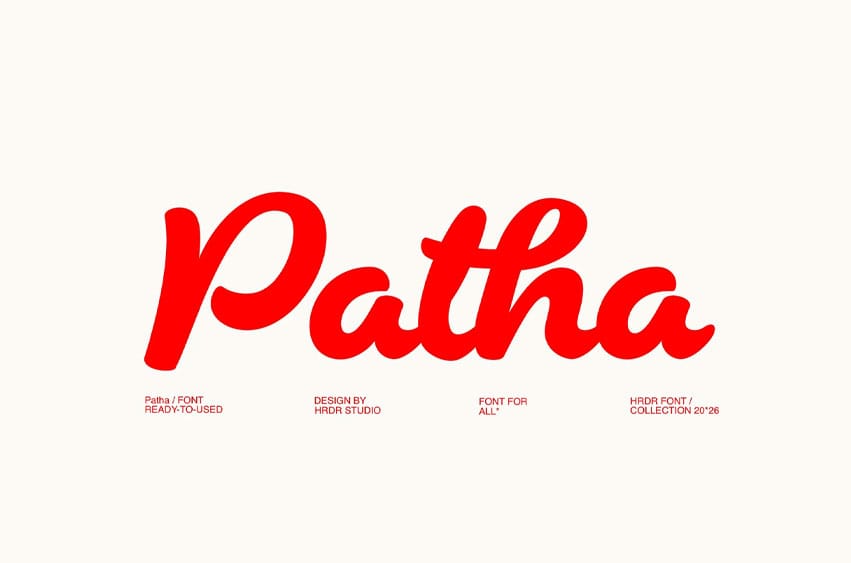
Patha Font is bold and curvy script font evokes a sense of retro and elegant charm, font made for food lovers and branding, this font captures the energy of tasty visuals from restaurant logos to packaging.
Ideal for food restaurants, burger joints, or anything delicious adds flavor to every design, Ideal for designers looking to create a fun and unique impression.